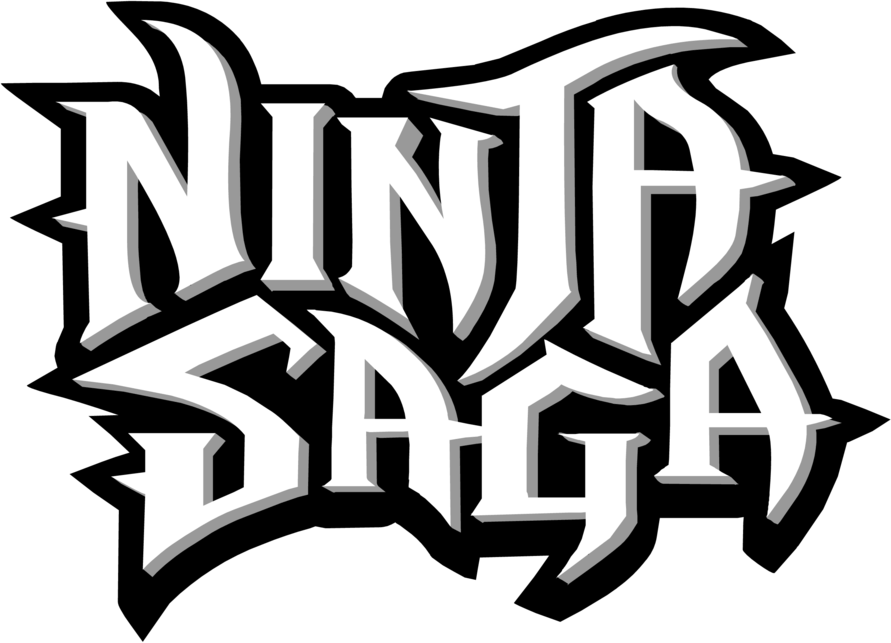
This is a bold and handcrafted brush style font that will give a samurai style look to your. Fontsc.com is formed in the spirit of for fonts, where creative ideas meet beautiful designs as we all know great designs last forever! Use gimp, adobe photoshop, or paint shop pro to apply the necessary.
Ninja font specimen ninja is a sweet and round lettered handwritten font. If you can, it’s also best. Fonts ninja for macos and windows lets you instantly try stinger slim (© zetafonts) and more than 3500 fonts from popular foundries.
It’s An Incredibly Fun And Interesting Display Font.